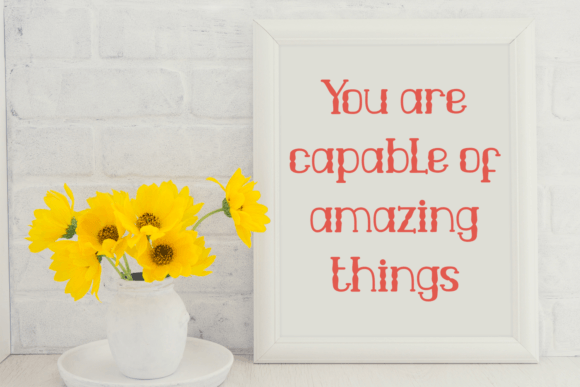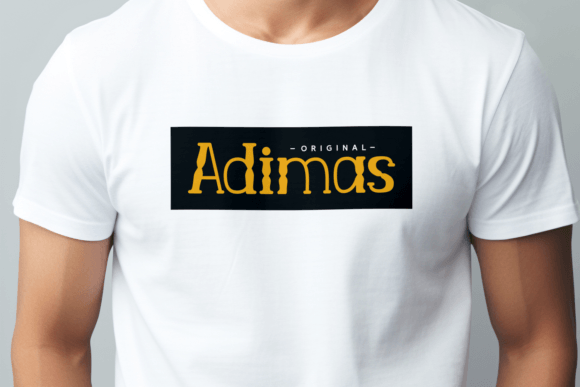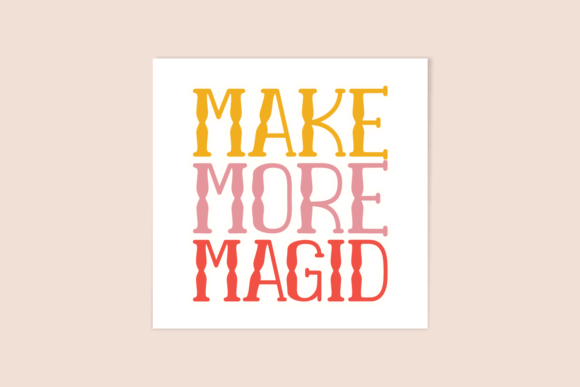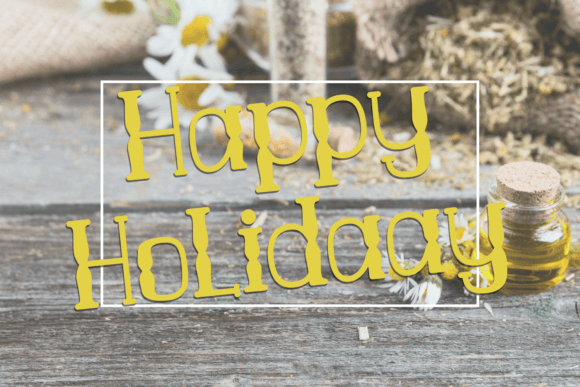
Introducing Always Unique: The Display Font that Elevates Creative Expression
In the world of design, fonts play a crucial role in conveying the tone and personality of a creative project. A well-chosen font can make all the difference in capturing the audience’s attention and leaving a lasting impression. If you’re a designer or crafter looking to add a touch of whimsy and uniqueness to your work, look no further than Always Unique, a captivating display font that’s sure to take your creative endeavours to the next level.
The Distinctive Persona of Always Unique
Always Unique is more than just a font – it’s a statement piece that adds a dash of personality to any design project. Its distinctive, audacious persona is unignorable, guaranteeing that every character you create reverberates with unforgettable impact. With its bold and playful design, Always Unique is perfect for designers who want to make a statement and create a lasting impression.
Breathe Life into Your Designs with Always Unique
Whether you’re creating captivating posters, powerful headlines, or any other form of creative expression, Always Unique is the perfect font to bring your ideas to life. Its versatility knows no bounds, and it’s suitable for a wide range of design projects, from branding and advertising to packaging and digital media. With Always Unique, you can:
• Create eye-catching posters that grab attention
• Design powerful headlines that make a statement
• Develop unique brand identities that stand out
• Enhance your digital media with a touch of personality
The Benefits of Using Always Unique
So, what sets Always Unique apart from other fonts? Here are just a few benefits of using this spirited and versatile font:
• Unforgettable Impact: Always Unique guarantees that every character you create will leave a lasting impression on your audience.
• Distinctive Touch: This font imbues your work with a distinct, indelible touch that sets it apart from the rest.
• Artistic Versatility: Always Unique is a versatile font that can be used in a wide range of design projects, from print to digital media.
• Boundless Creativity: With Always Unique, you can unleash your creativity and experiment with new and innovative design ideas.
Unleash Your Creativity with Always Unique
Always Unique is more than just a font – it’s a creative partner that helps you bring your ideas to life. Its unique design and versatility make it the perfect choice for designers and crafters who want to push the boundaries of creativity. With Always Unique, you can:
• Experiment with new and innovative design ideas
• Develop a unique visual style that reflects your brand or personality
• Create designs that are both functional and aesthetically pleasing
• Take your creative endeavours to the next level
In conclusion, Always Unique is a captivating display font that’s sure to elevate your creative expression. Its distinctive persona, versatility, and artistic flair make it the perfect choice for designers and crafters who want to add a touch of whimsy and uniqueness to their work. Whether you’re creating posters, headlines, or any other form of creative expression, Always Unique is the perfect font to bring your ideas to life. So why wait? Unleash an unrivalled wave of artistic versatility with Always Unique and take your creative endeavours to new heights.